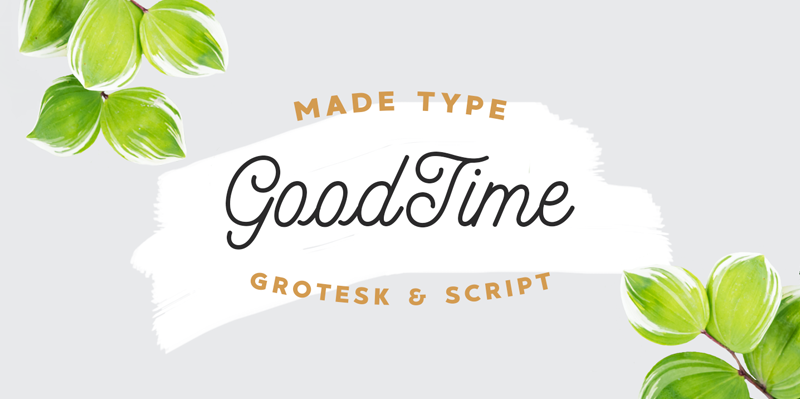
MADE GoodTime - is a monoline script and grotesk font that both work great together or alone. This delicious duo contains 2 fonts, especially designed to make sure there’s always one that fits your design needs. MADE GoodTime gives an fresh look for any project from print to digital. MADE GoodTime are perfect for headlines and short texts. Use it for magazines, packaging, advertising, branding, posters, editorials, TV, movies and websites. Updated MADE GoodTime Script to v1.1 (Fixed bugs) ----- FOR PERSONAL AND COMMERCIAL WORK https://www.fontspring.com/fonts/madetype https://creativemarket.com/MadeType https://thehungryjpeg.com/madetype https://www.youworkforthem.com/designer/1002/madetype/ ----- https://www.behance.net/madetype Email for questions: Madetypeinfo@gmail.com |